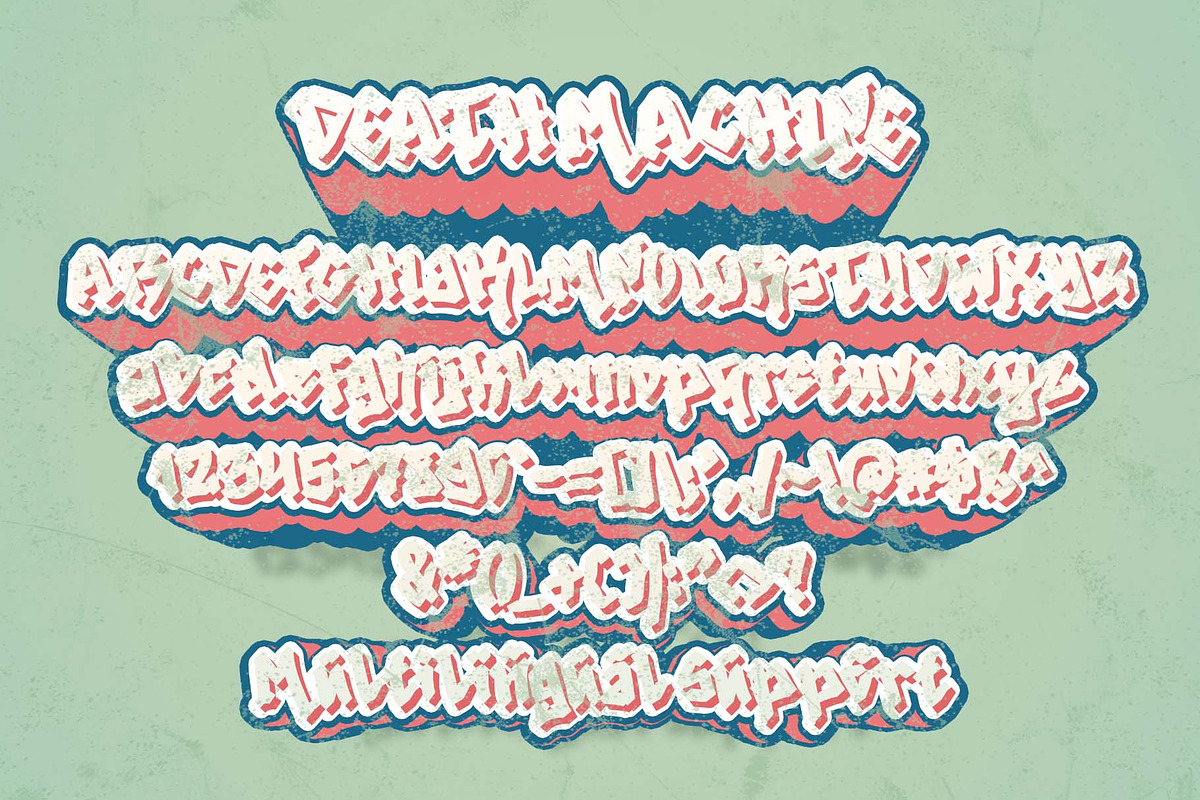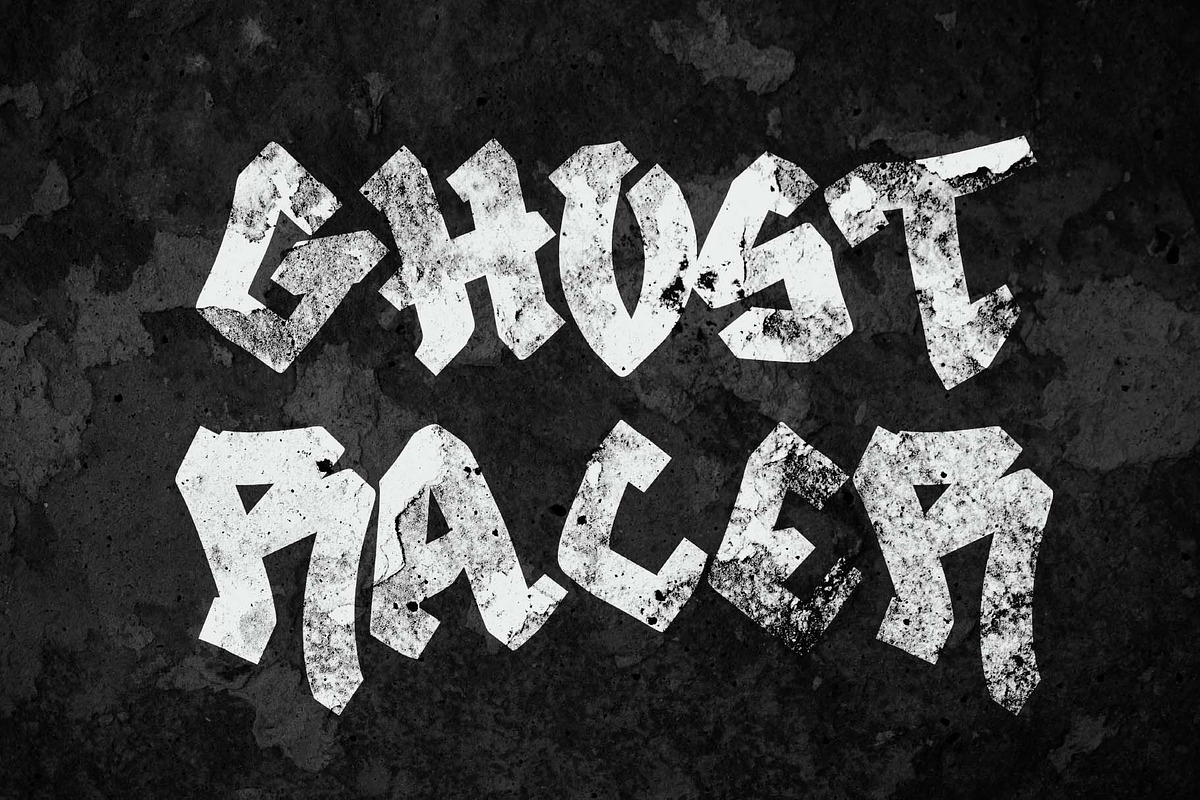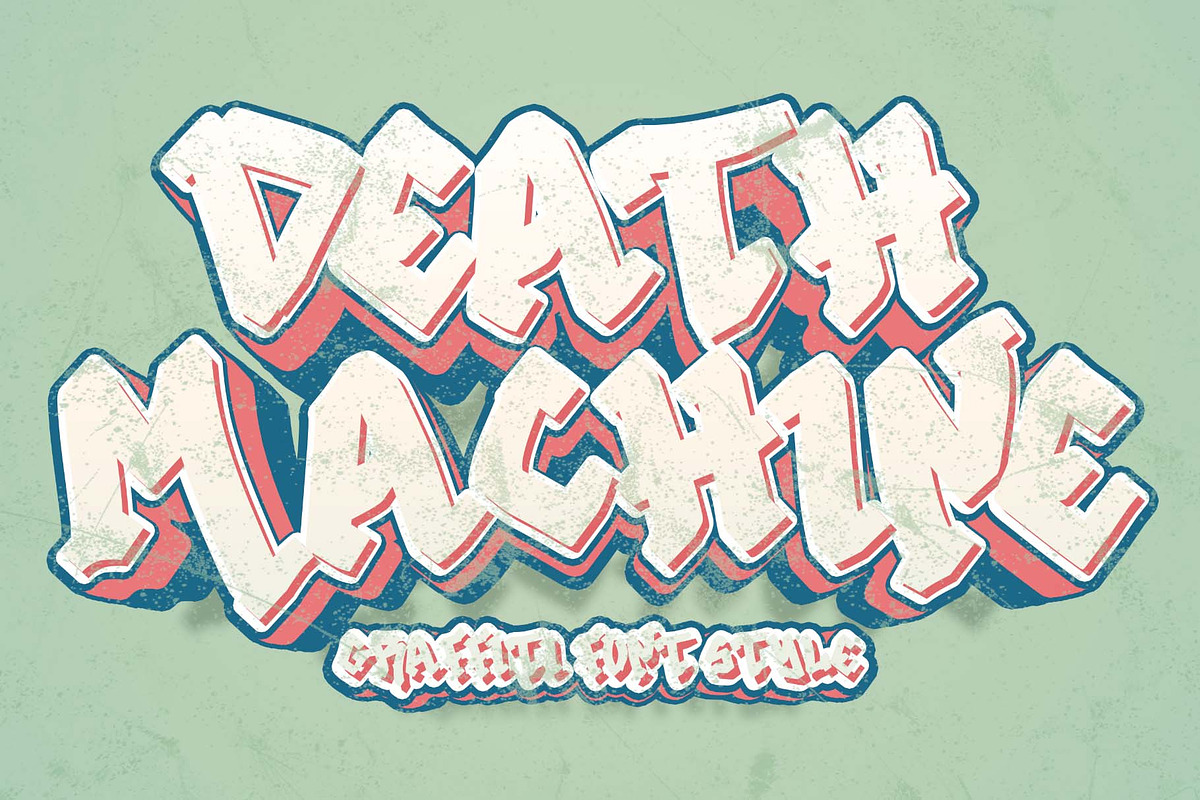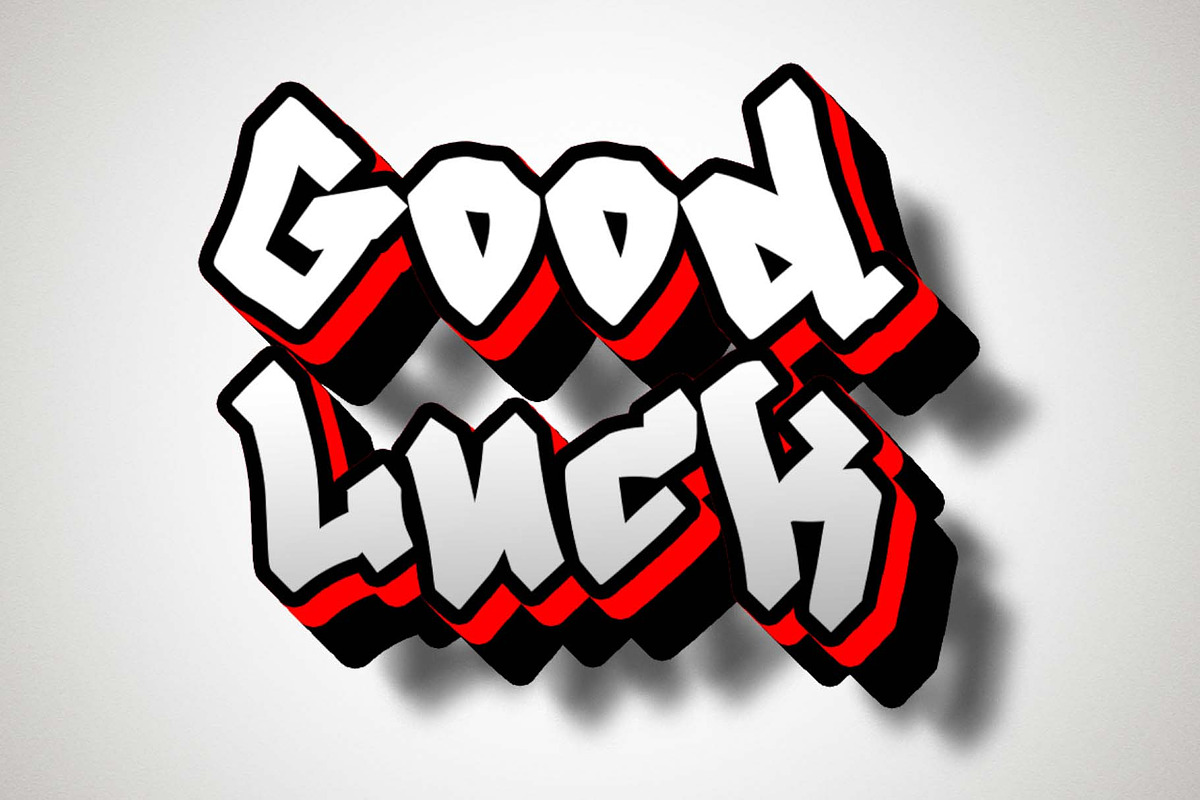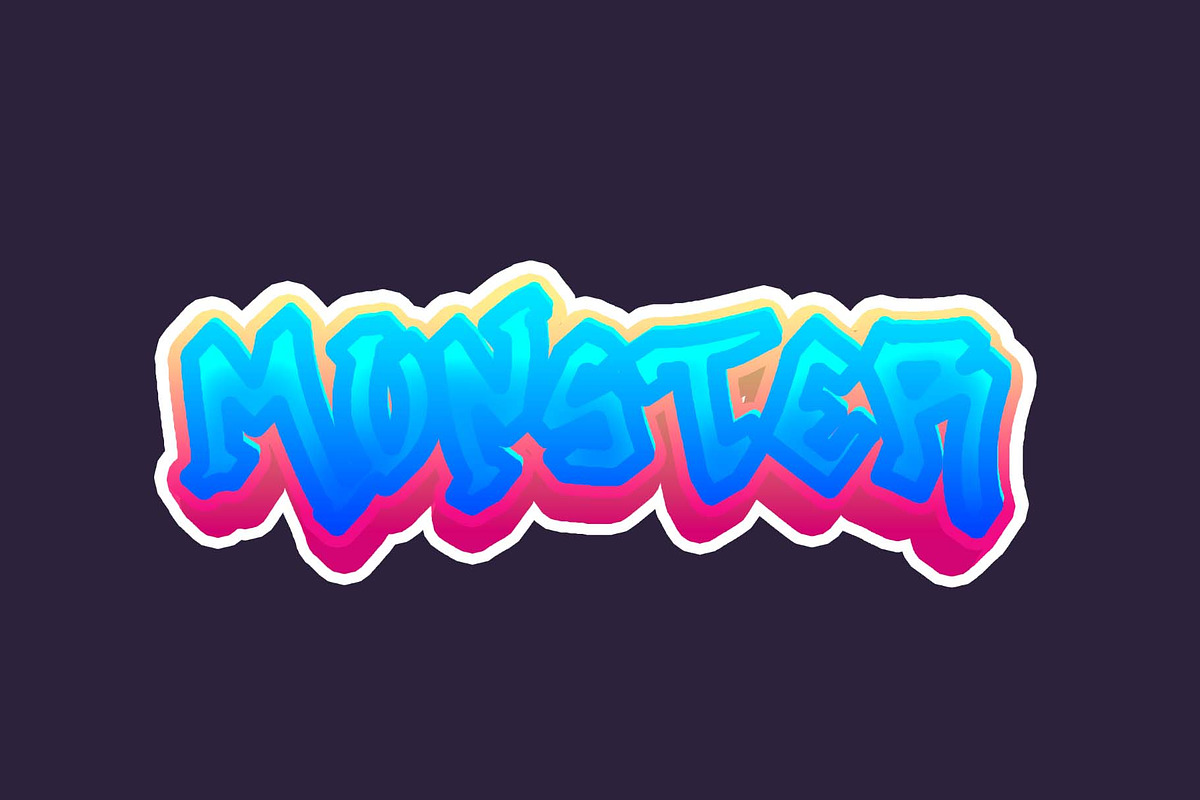
Death Machine
"Death Machine" is an elegant graffiti font. This font is very suitable for stickers, posters, tattoos, banners, branding, business branding, social media, Halloween, Christmas, Valentine's Day, and others. This font is equipped with uppercase, lowercase, numerals, punctuation, and multilingual support.